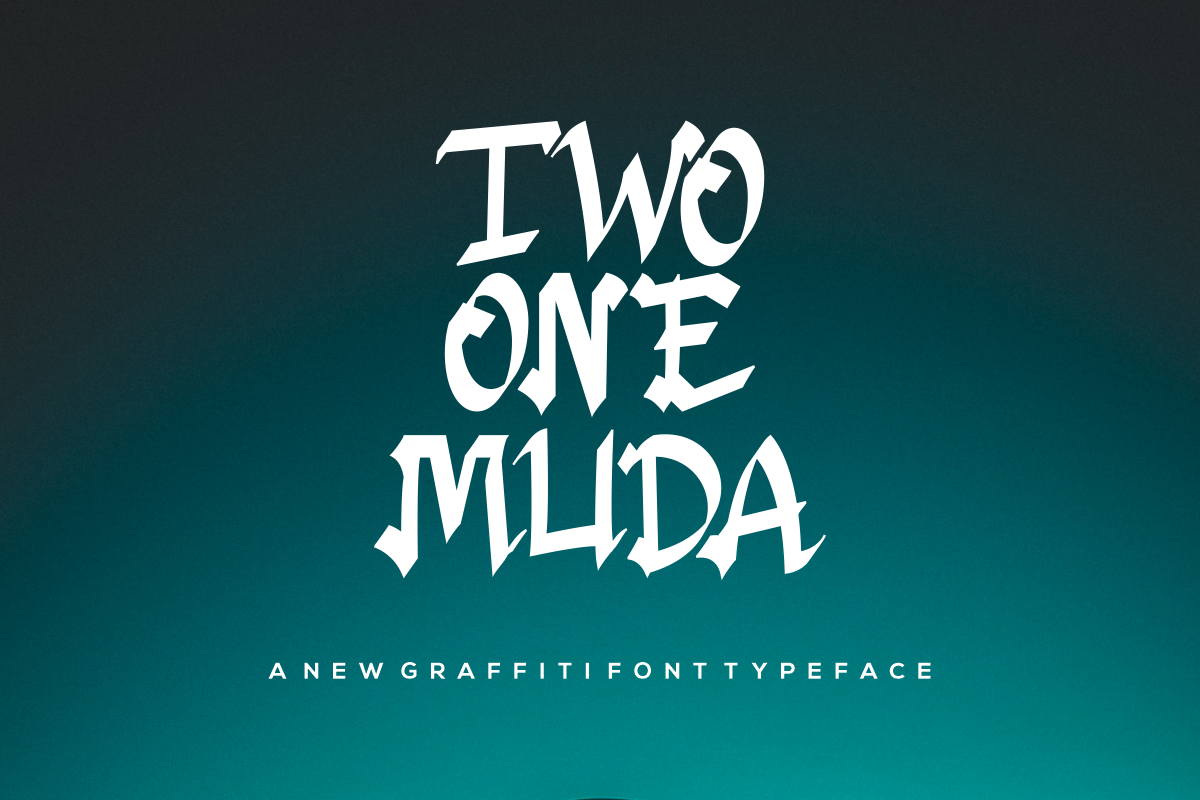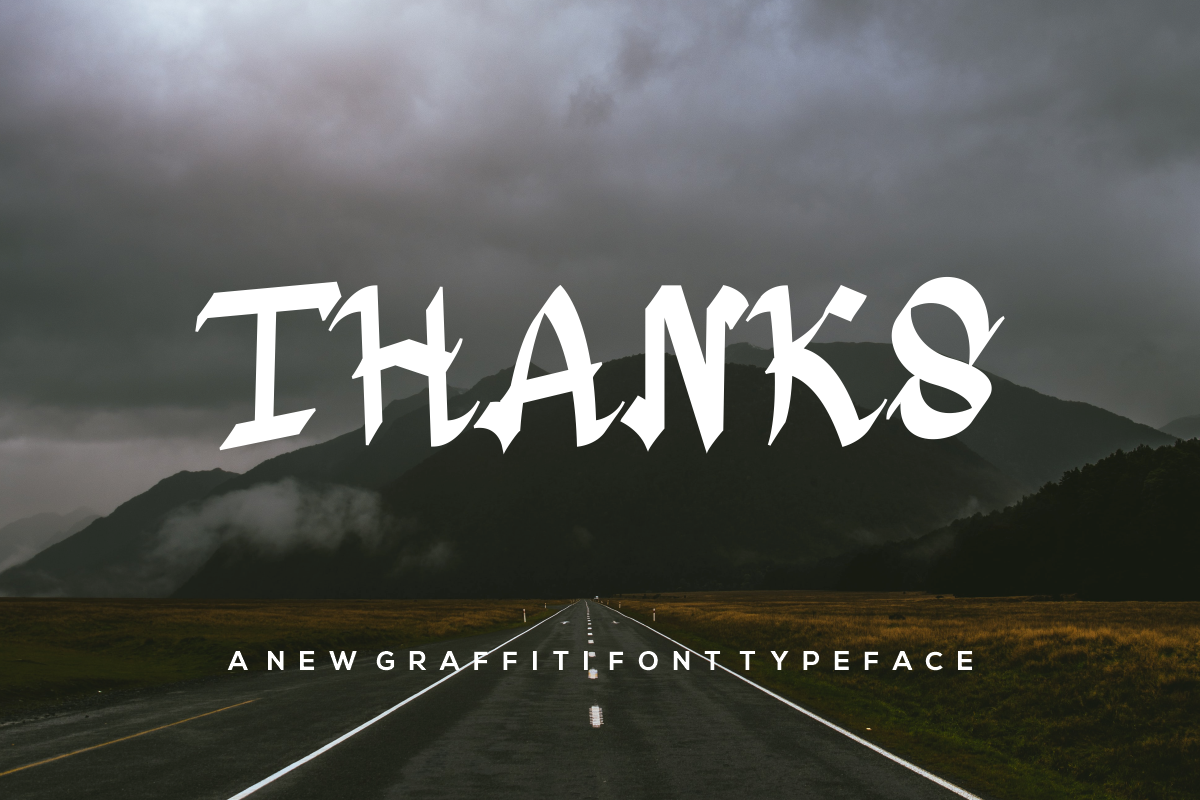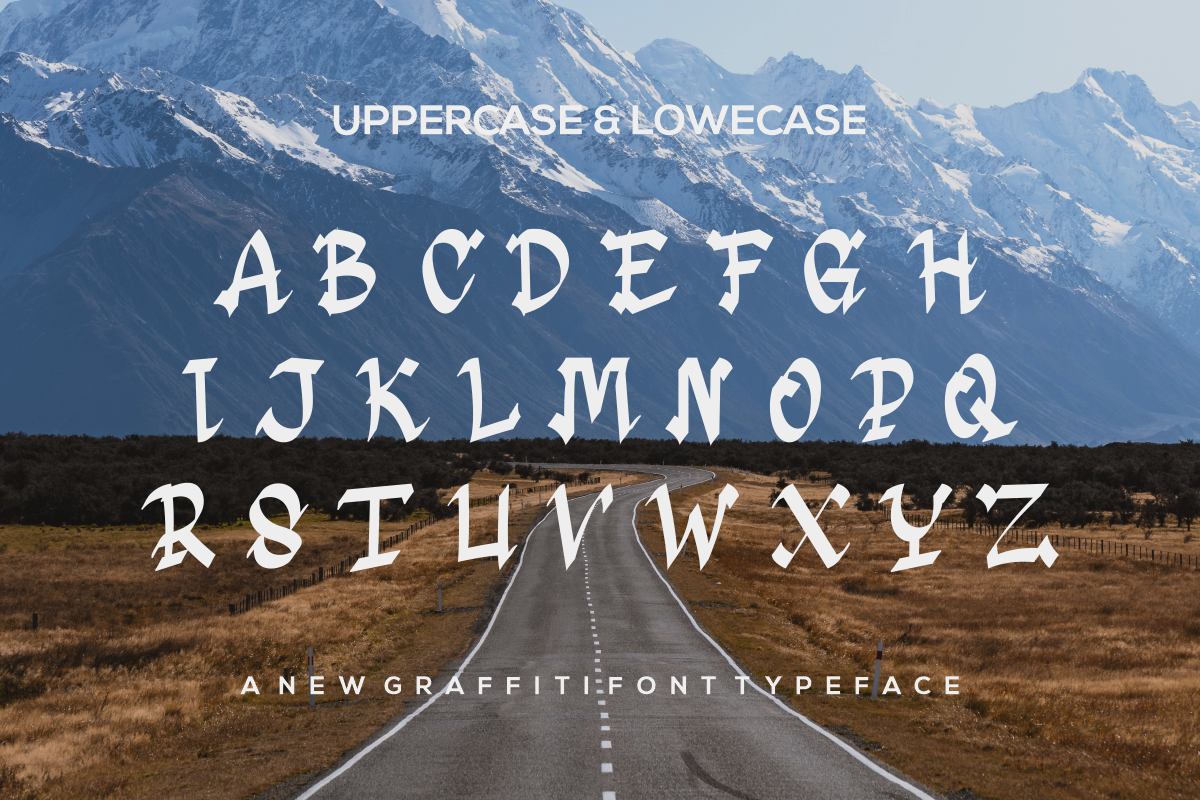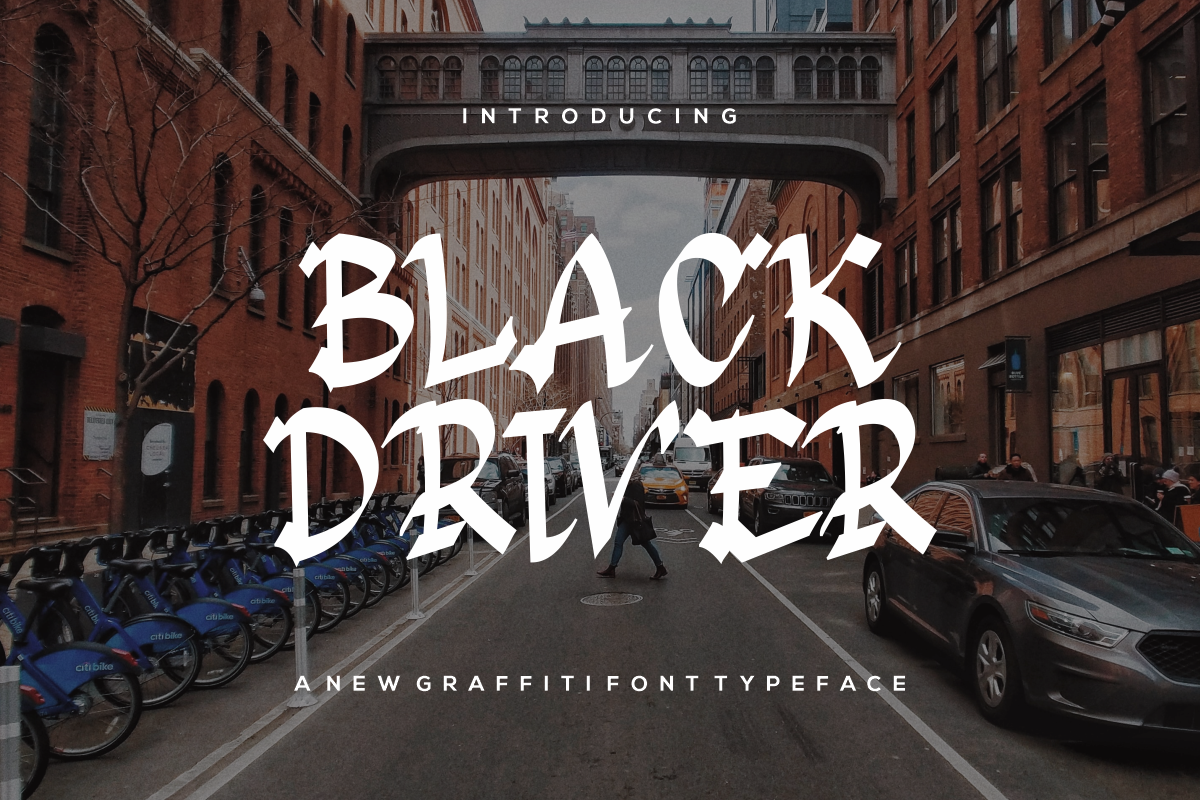
black driver
luxury font family black driver with 18 different styles to choose from. This font is the best choice for your various design projects because of its unique personality and beauty. The entire range includes a sans-serif look and style suitable for a variety of applications, including logos and posters. Allow this font to create stunning graphic designs, banners, posters and texts for you!